There are many holidays that all Muslims usually celebrate in a year. From Islamic New Year to Eid Al Adh, you can create a graphic design with Islamic nuances to commemorate those special days whether in social media or in real life. But, how to bring that mood? Islamic font can be the best gateway to elevate your design and liven up the vibes. Thus, you can make exceptional Islamic designs for every celebration.
Typography is the art of arranging copy text and letters. The aim of this element is to help the audience to enjoy the design and understand the message while reading the text. Thus, to play with this element, you need to make the text easy to read. Besides providing legibility in the copy text, typography can affect the overall look of the design. The right font styles can draw the audience’s attention, liven up the mood, and create harmony.
When you want to bring Arabic nuances, the Islamic font style can give a magic touch to your overall design look. Along with that, Islamic fonts have special characters in their strokes and dots. They adopt the elegant shapes of Arabic scriptures, but make them more readable for the general audience with the Latin Alphabet. You can easily tell that the design has Islamic vibes from the font styles used. In short, you don’t have to put too much effort to make your design more lively and save your time.
Arabian Fairs becomes the first Islamic font that we recommend for you. This font is inspired by the Arabic alphabet to build the Islamic vibes in your design. Even so, it is still legible and readable for the general audience. In addition, It has light stokes that make it look more supple and modern. You can use this font to greet the holy Ramadan or celebrate other holidays like Eid Al Fitr and Eid Al Adh. Along with that, you can also apply this font style to promote your business, wedding invitation, and others.
This one is another Arabic font style that you can use to celebrate Islamic holidays. Like Arabian Fairs, Sabana also has unique strokes and dots that can strengthen the warm nuance of Islam. Although you cannot read Arabic letters, we grant you can still read the text with this font. Because each character in this set has firm and supple shapes in the Latin alphabet. Greet the joy of Ramadan with this beautiful and unique font set!
Different from the other two above, The Quraisy has more simple shapes without much decoration. This typeface has bold and firm strokes that make it look clean and minimalist. This is a perfect choice if you want to make a design with a more modern look yet doesn’t leave the vibes of Islam. As a result, you can create numerous designs for your Ramadan project or other promotions for your business.
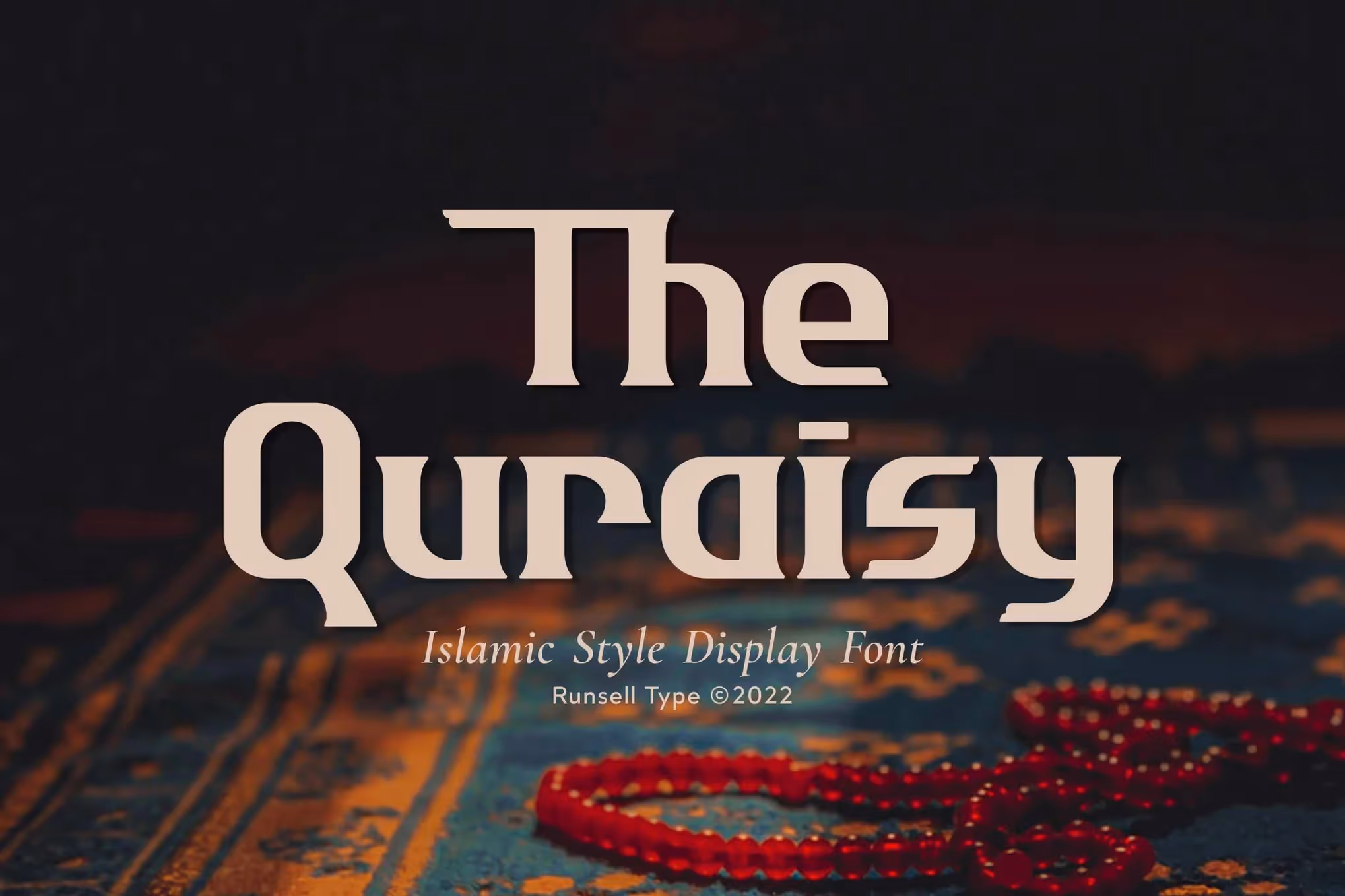
Are you looking for an Islamic font style that radiates cute and playful energy? Well, yeah Kasem can be the best option for you then. This font style has adorable characters inspired by the Arabic alphabet. Some fonts adopt the original shapes of Hijaiyah letters like ‘b’, ‘d’, ‘e’, ‘u’, and ‘o’. You can use this font set to make a complete design for children. Let’s hype the holy Ramadan with this cheerful font!
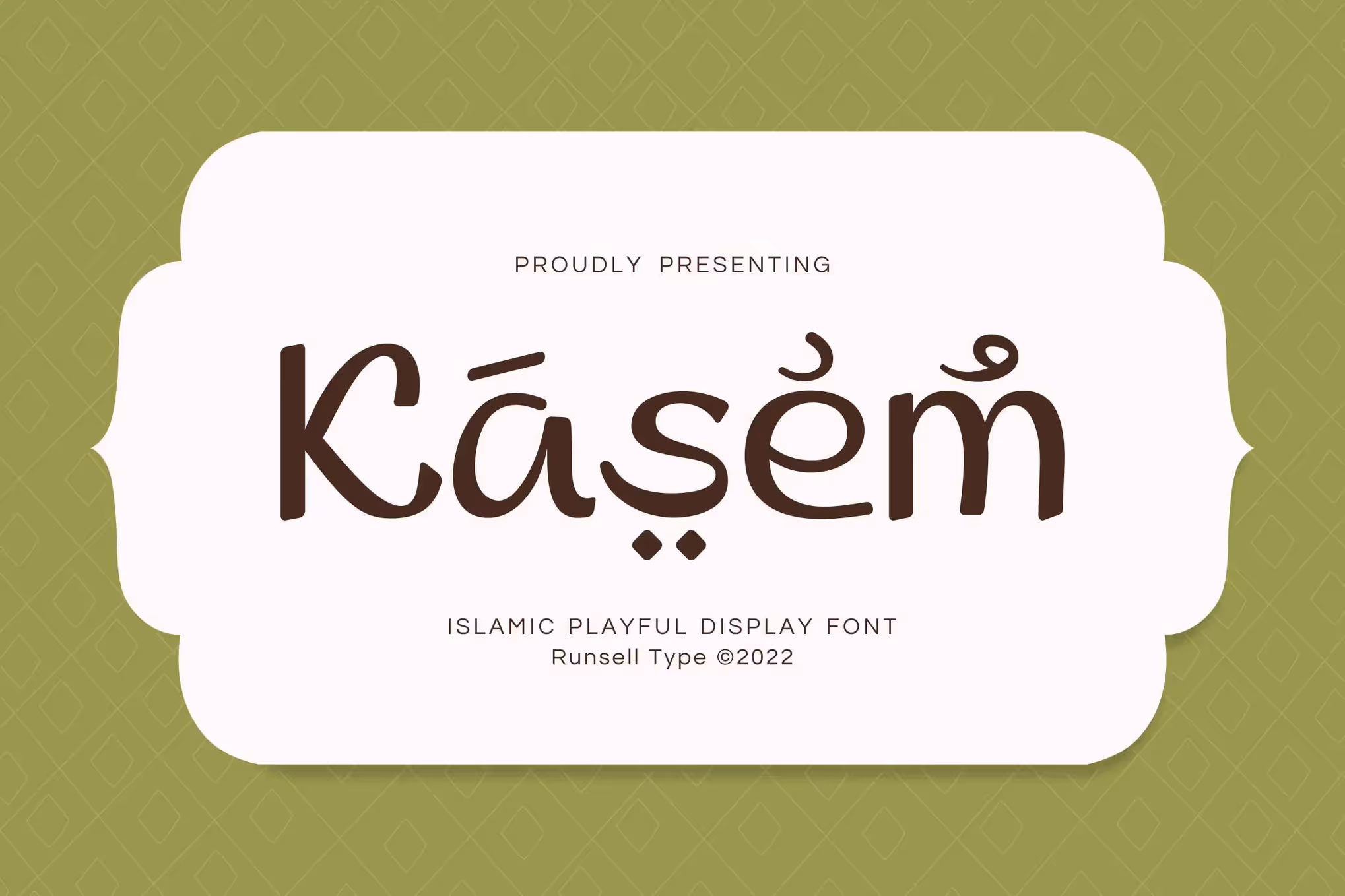
One more Islamic font set that is ready to hype your Ramadan project, Rabiul. This font has casual Arabian vibes with a little touch of hand-drawn style. The strokes are pretty bold which is perfect to apply for any design purpose. Aside, it has a romantic feeling carried by the fonts that you can also use for wedding invitations for example. In short, you can also use this set for personal use or promoting your business. Make your design look even more impressive with this beautiful font set!
Today, it is not a difficult thing to create a graphic design with a bold Islamic nuance since the world has embraced cultural diversity. With the use of Islamic fonts, you can liven up the charm of a certain culture, from traditional to modern. Moreover, it won’t limit your expression. You can consider using the beauty of Islamic font style for any graphic design purposes.